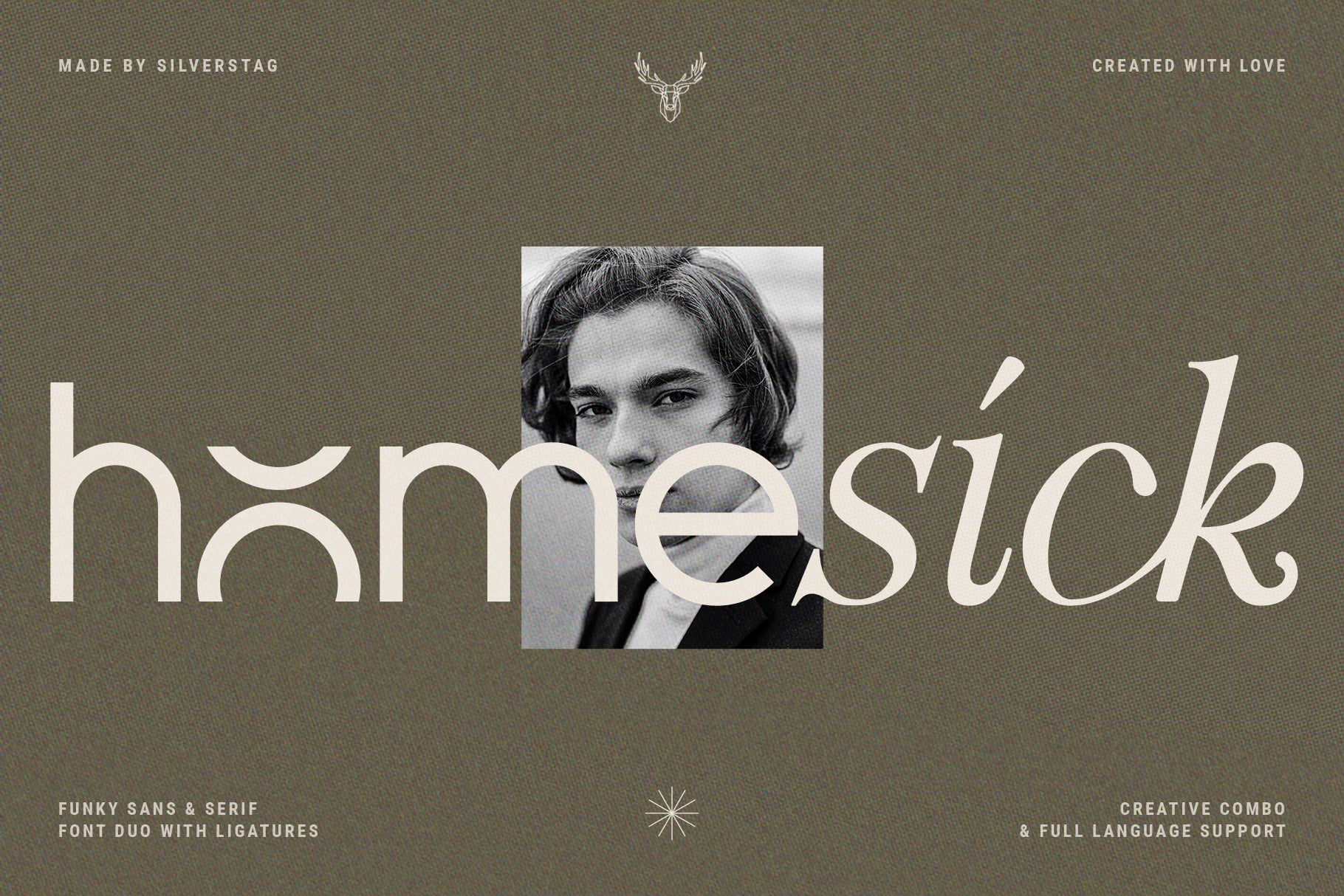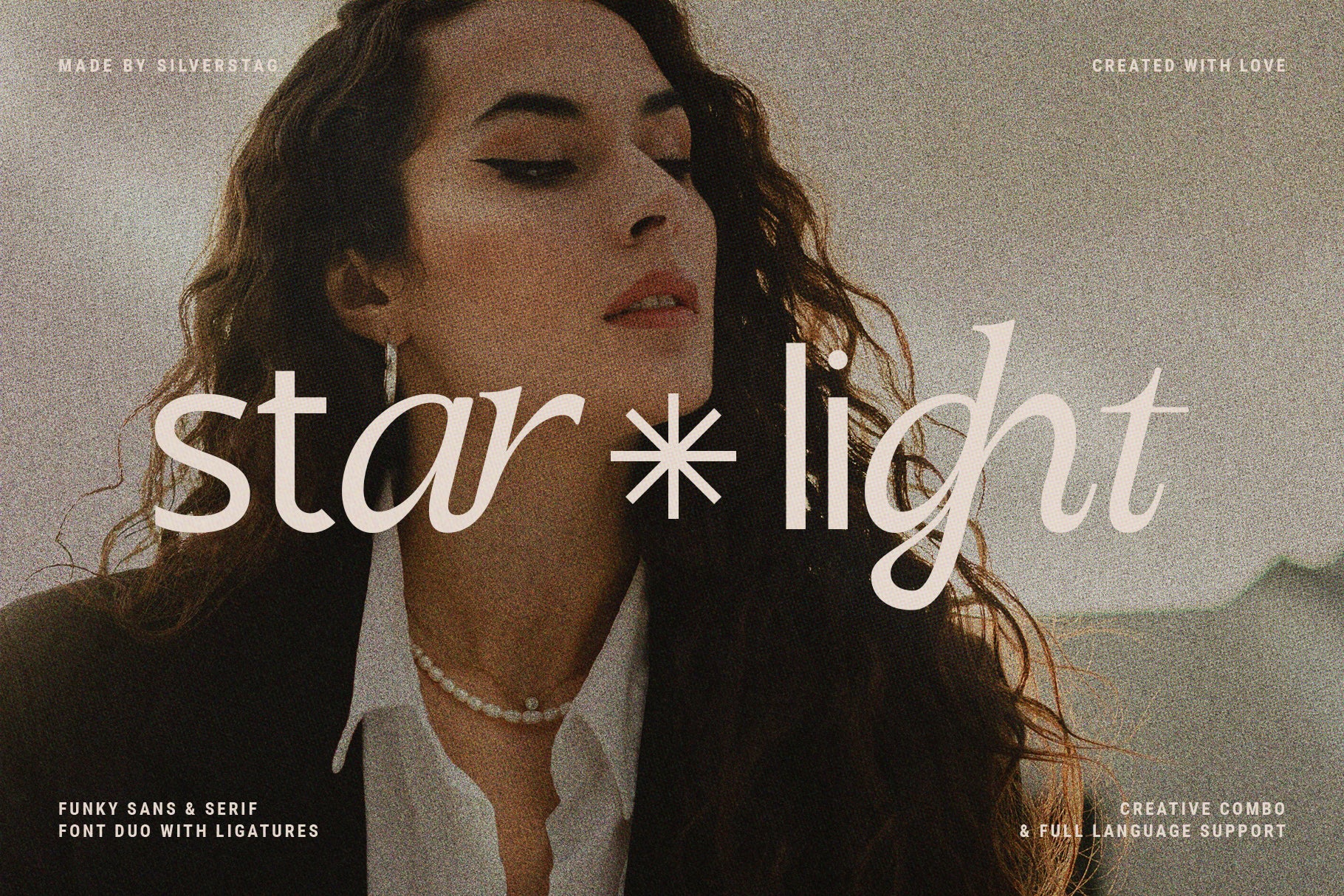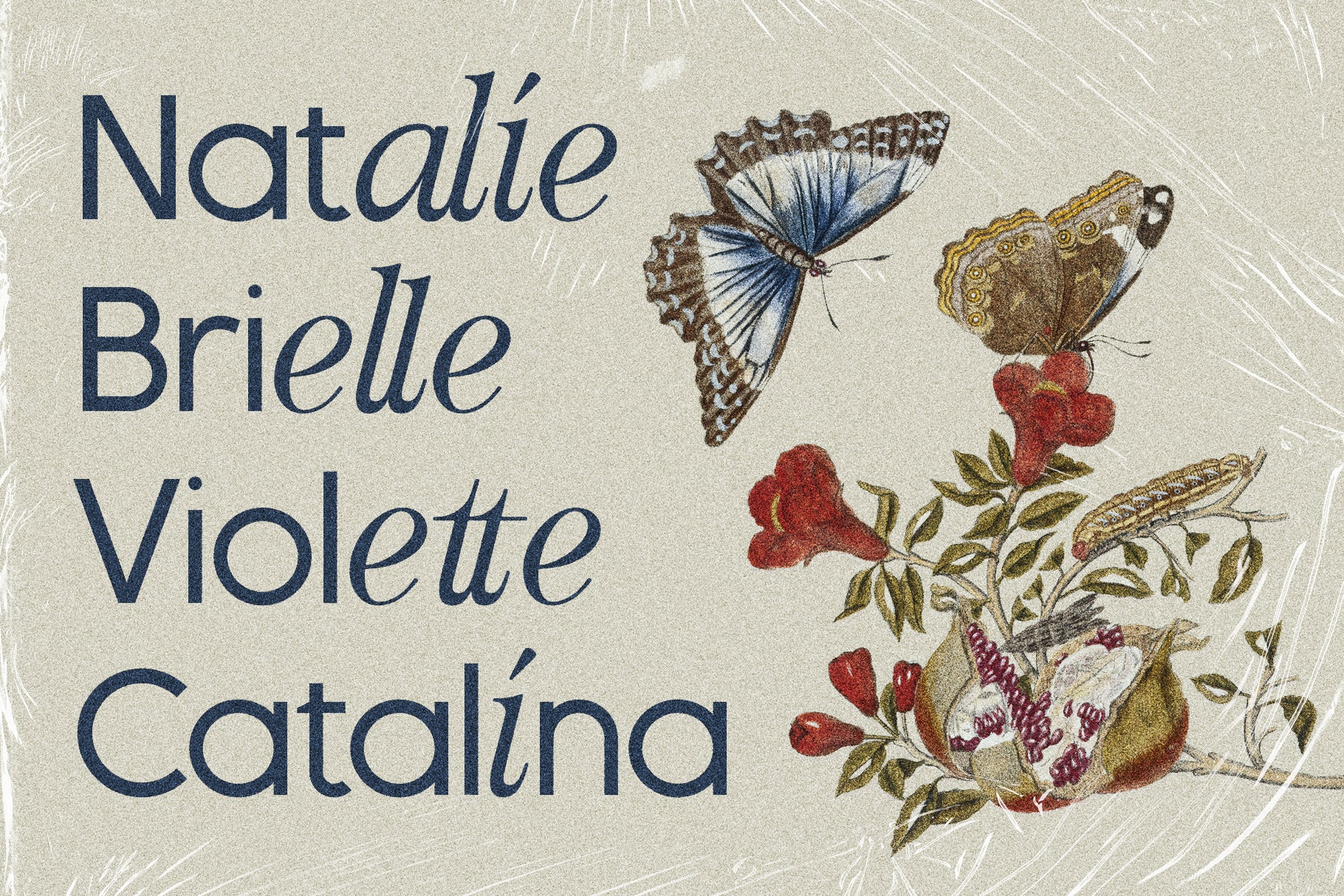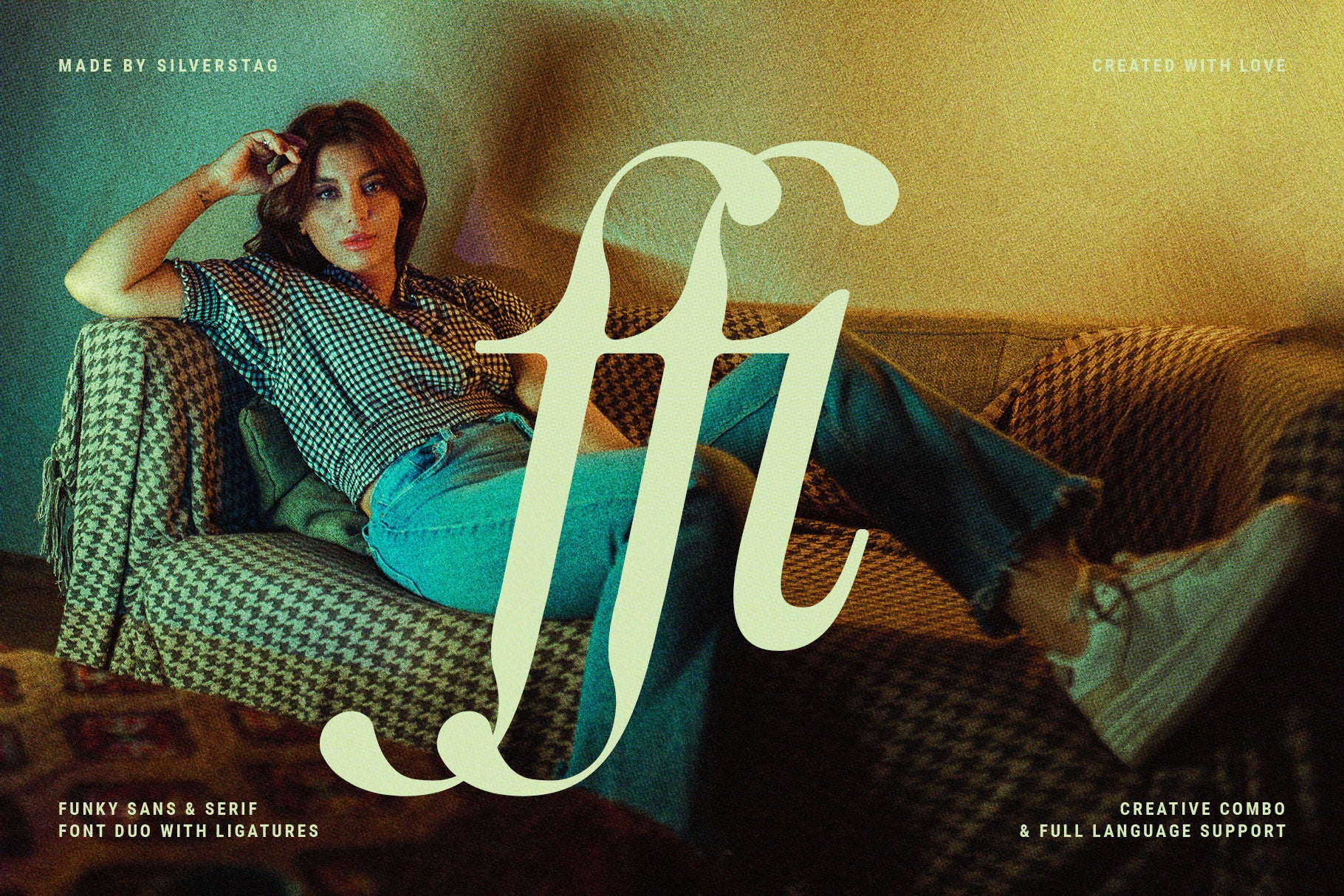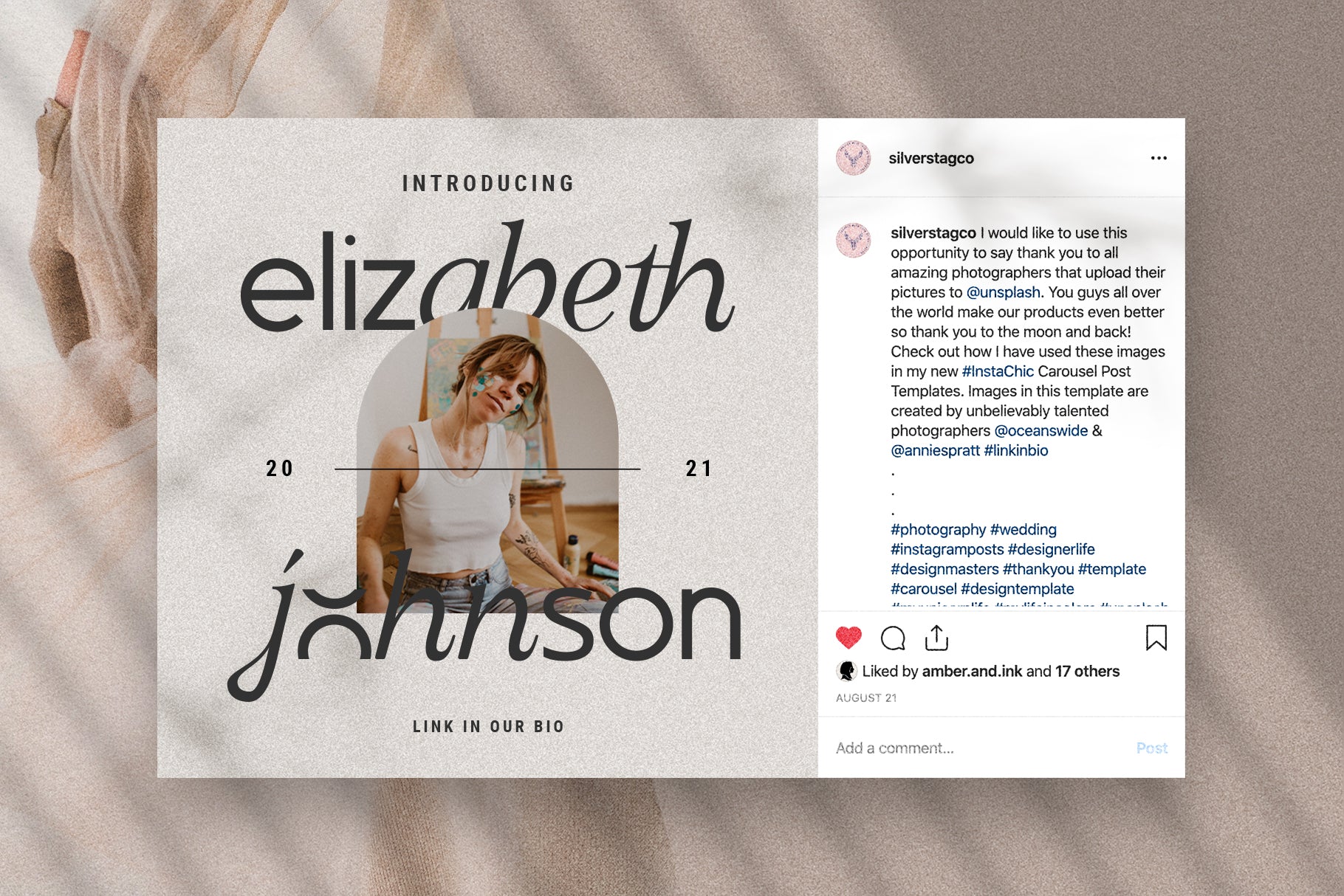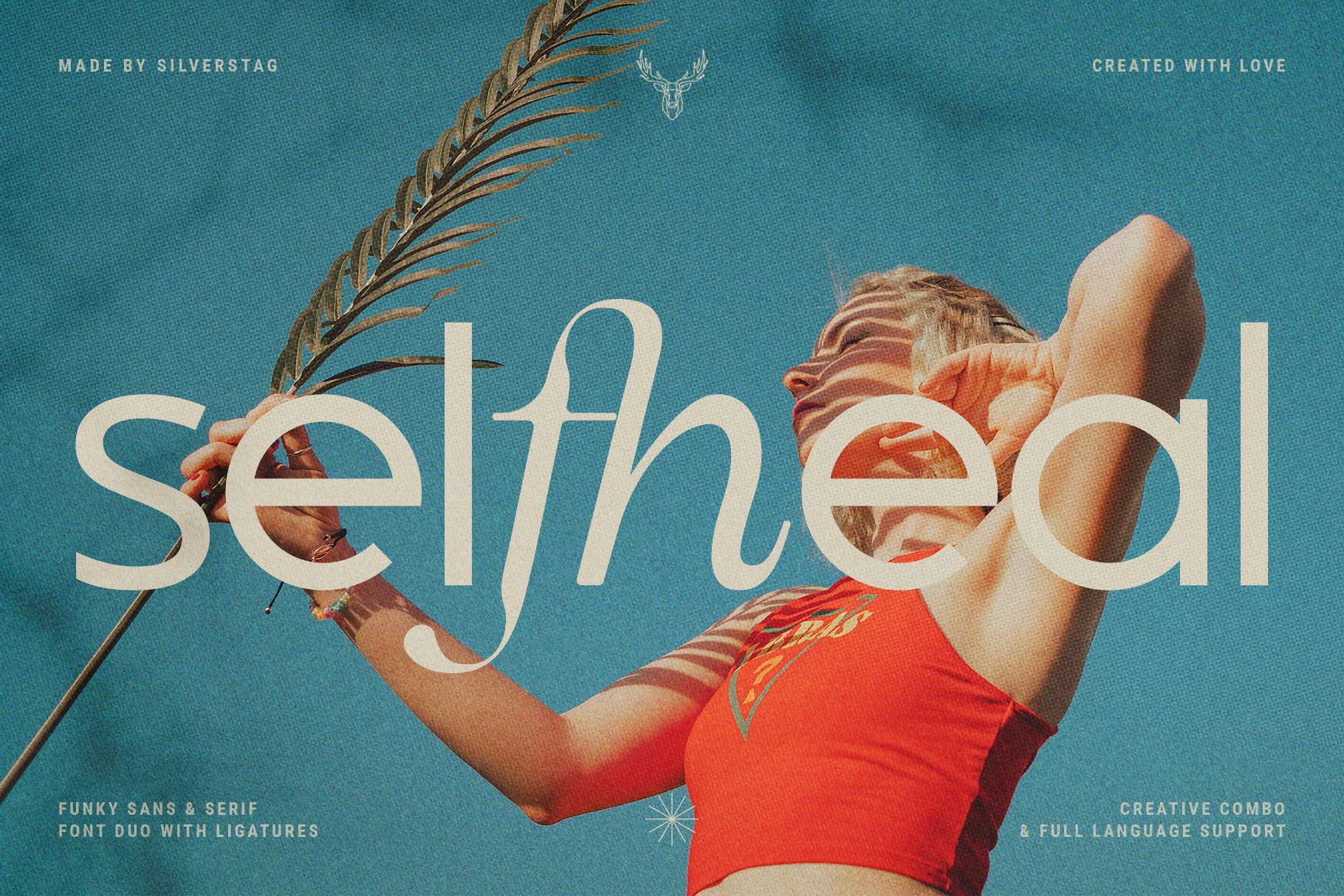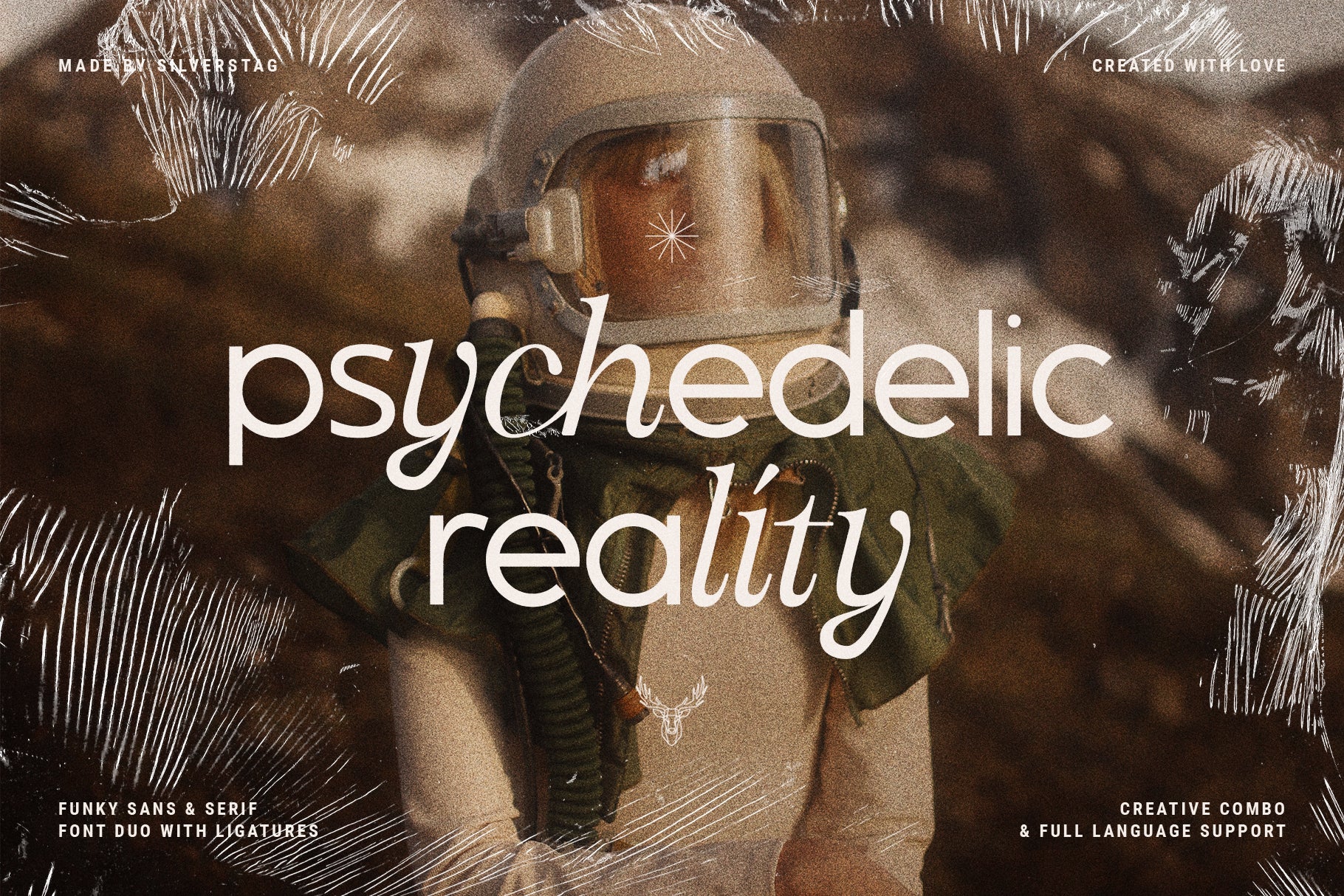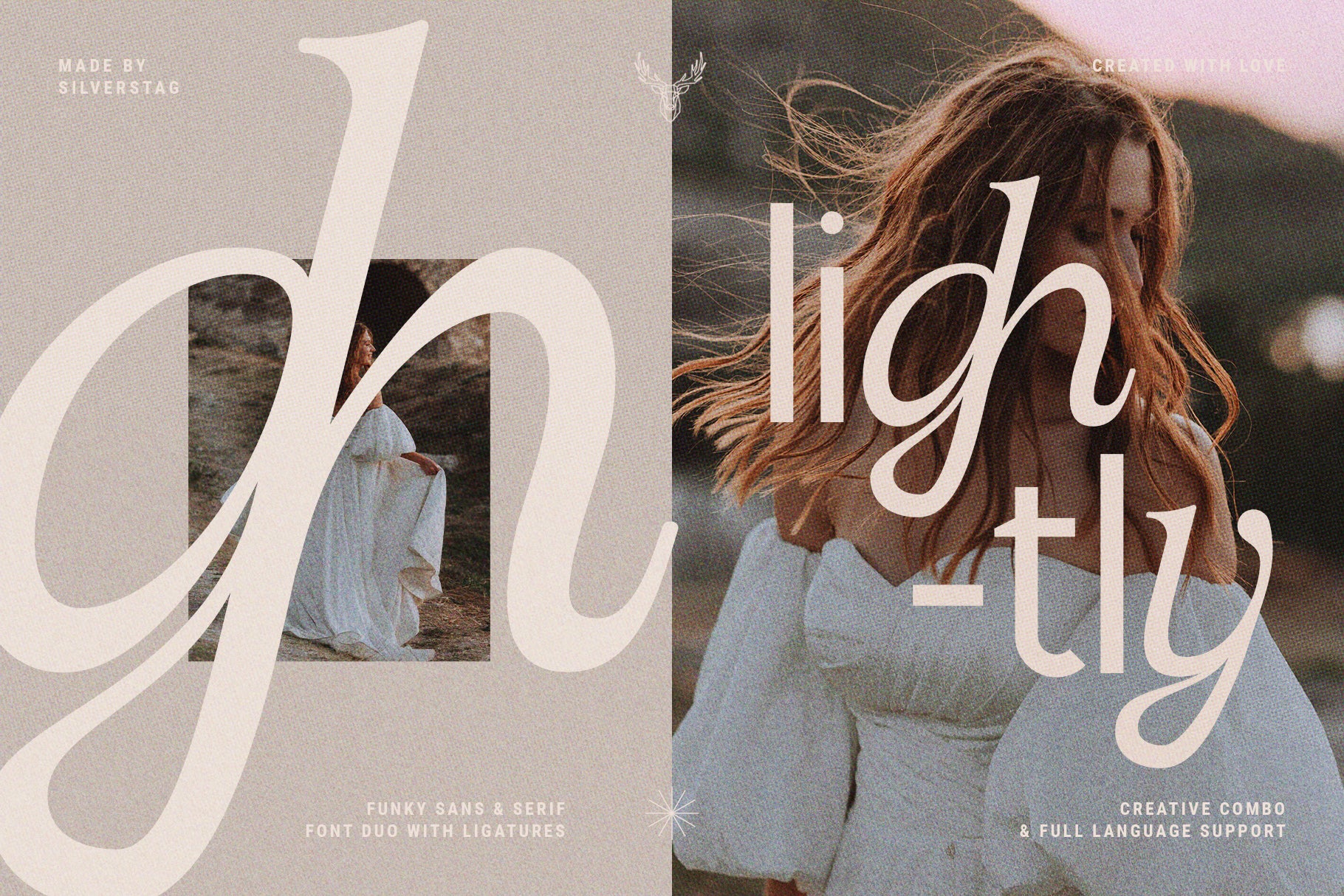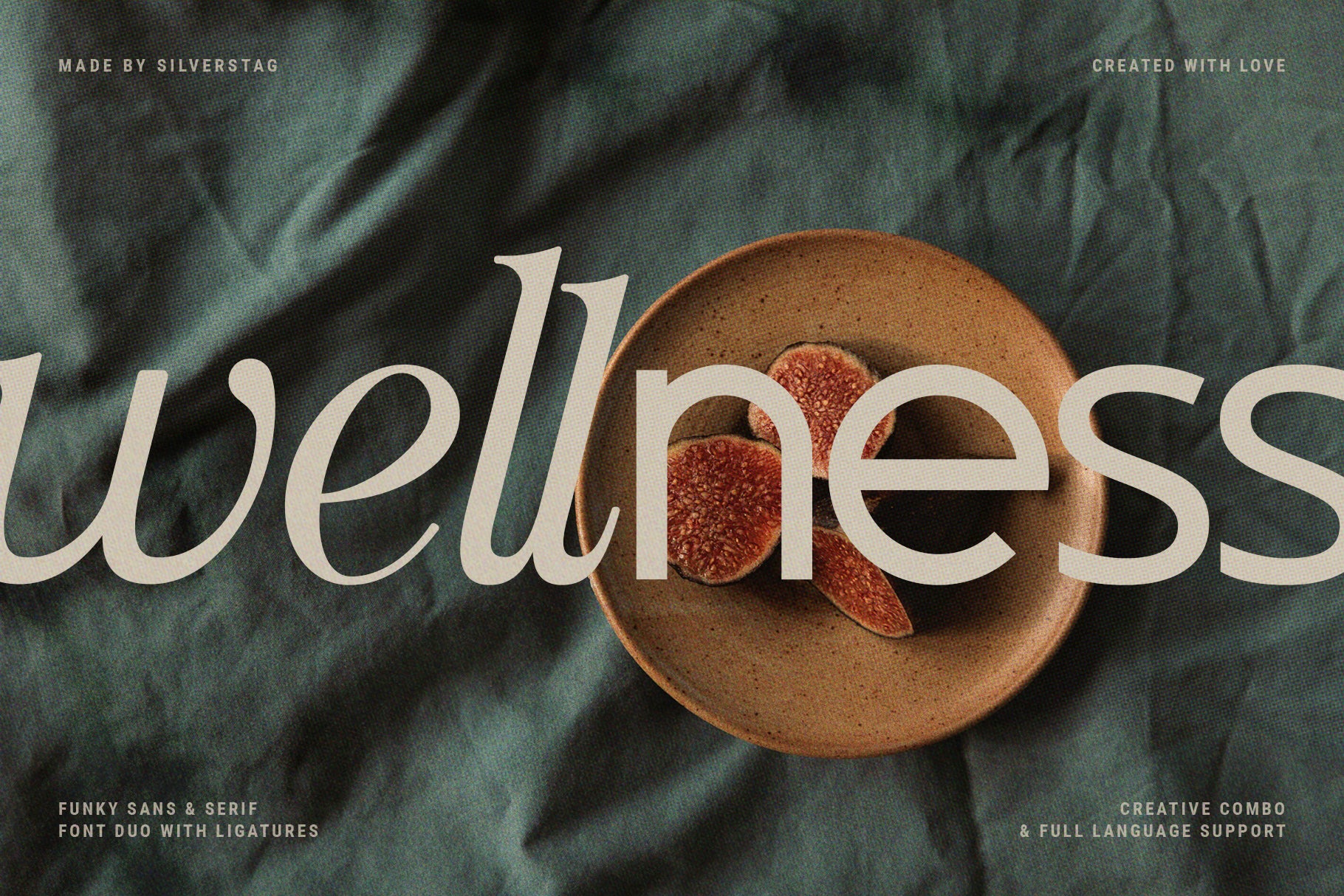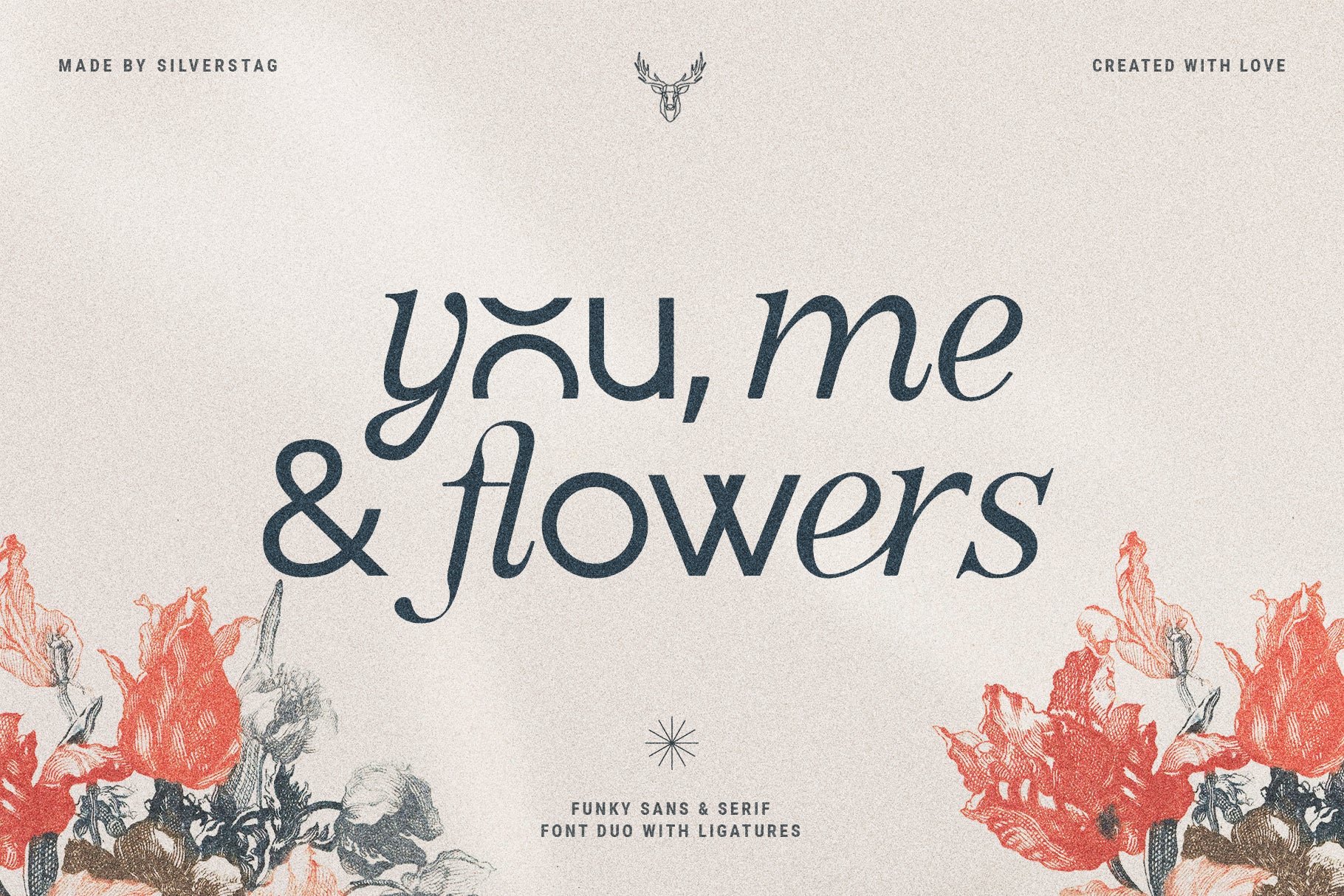
Officially Funky is a bold and playful modern font duo crafted for designers who want to blend nostalgic charm with contemporary flair. Following the success of French Lovers and Silver Garden, this new release brings a fresh fusion of clean sans serif letterforms with alternate serif letters, giving every project a vibrant and one-of-a-kind personality.
This 2-in-1 typeface is designed to elevate your creativity—whether you want a sleek, modern vibe using the sans or add a dash of funky character with the alternates and over 45 custom ligatures included. Each letter interaction feels handcrafted, offering limitless ways to make logos, branding projects, social media posts, and editorial layouts feel truly unique.
Complete with full language support, punctuation, numerals, and detailed instructions for accessing alternates and ligatures (even in Canva), Officially Funky adapts to every design need, from playful to polished.
Perfect for projects that need a bold but creative twist, this font duo helps you create visuals that are modern, lively, and unmistakably your own.